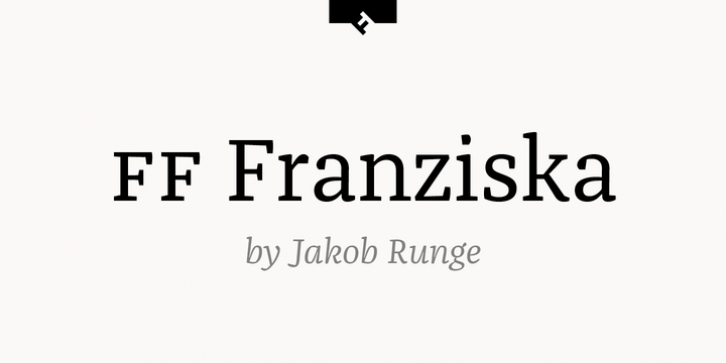
Publisher: FontFont
FF Franziska was designed by Jakob Runge and published by FontFont. FF Franziska contains 40 styles and family package options.
German type designer Jakob Runge created this FontFont in 2014.
The family has 20 weights and is ideally suited for advertising & packaging, logo, branding as well as web & screen design.
FF Franziska provides advanced typographical support with features such as ligatures, small capitals, alternate characters, case-sensitive forms, fractions, and super- and subscript characters.
It comes with a complete range of figure set options – oldstyle and lining figures, each in tabular and proportional widths.